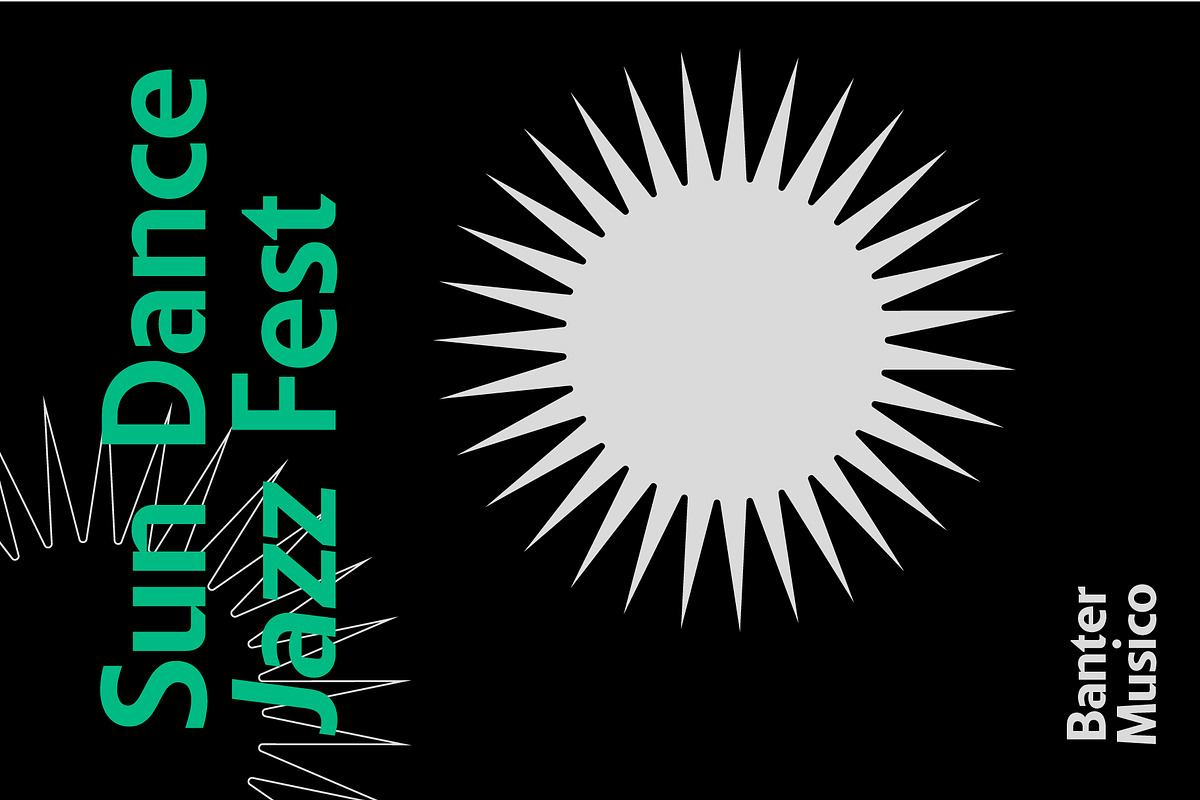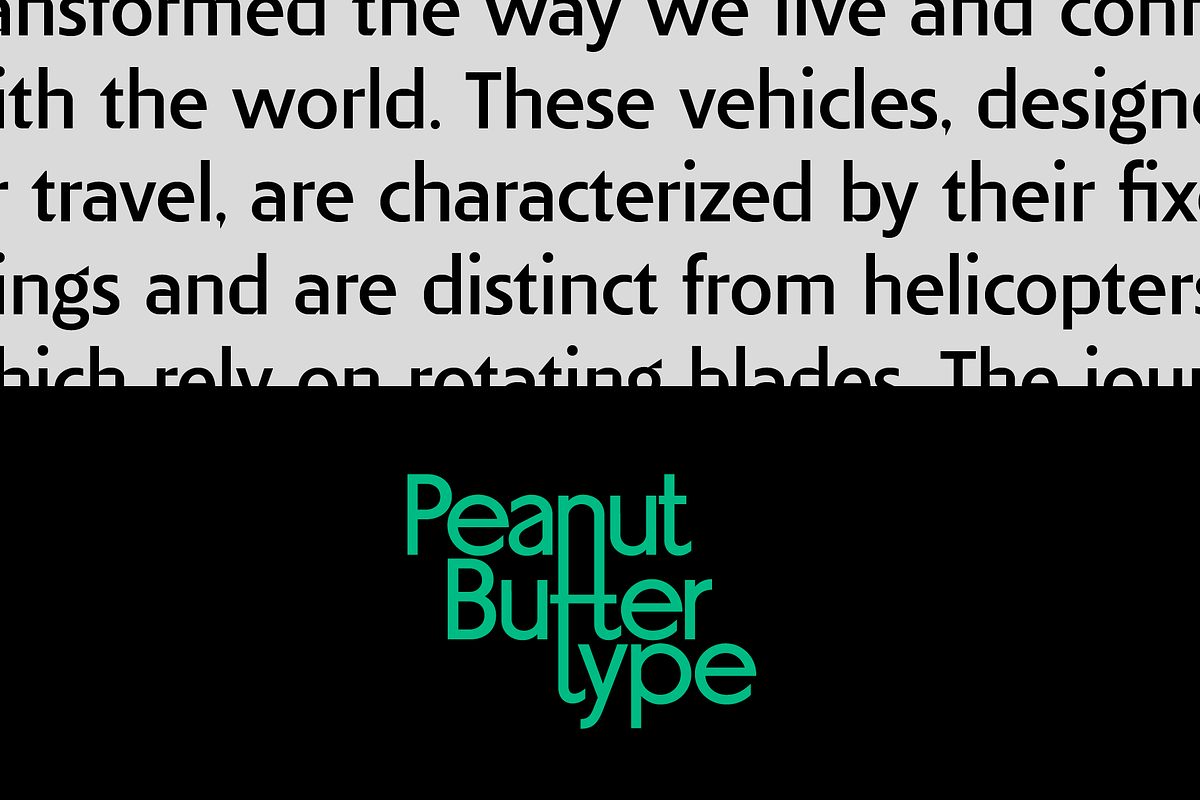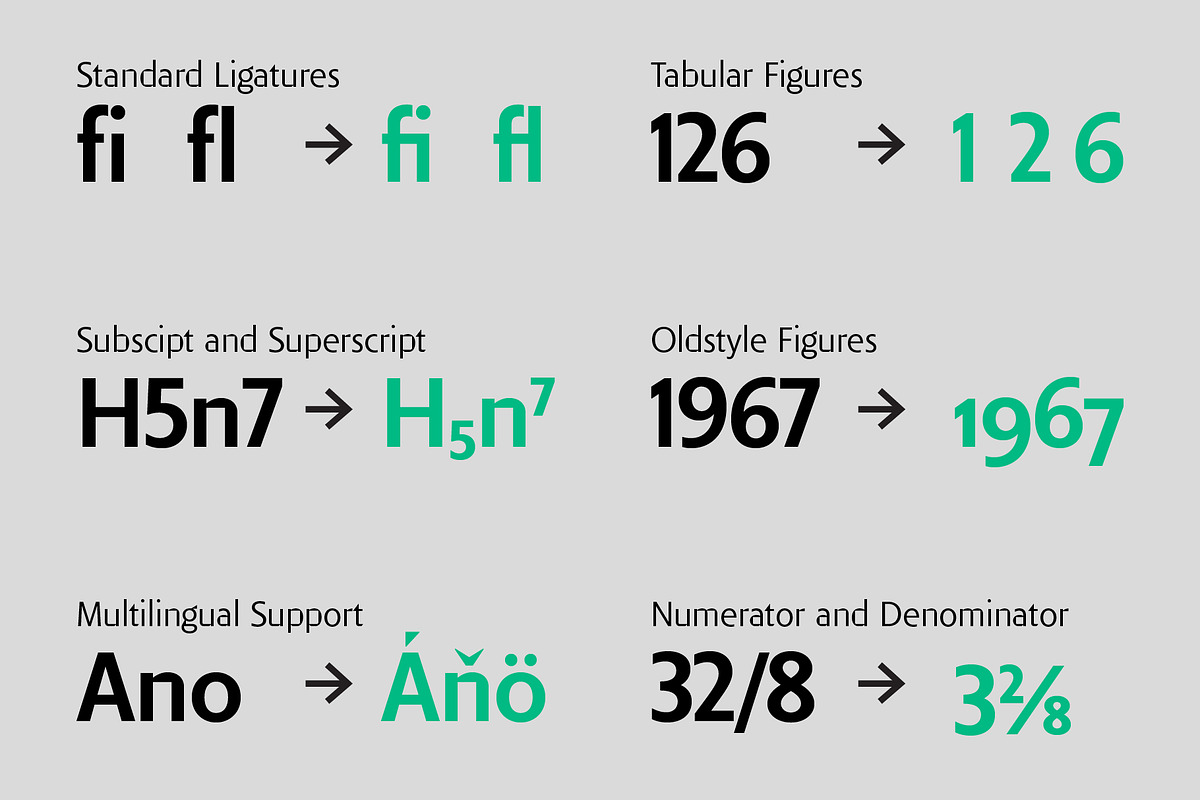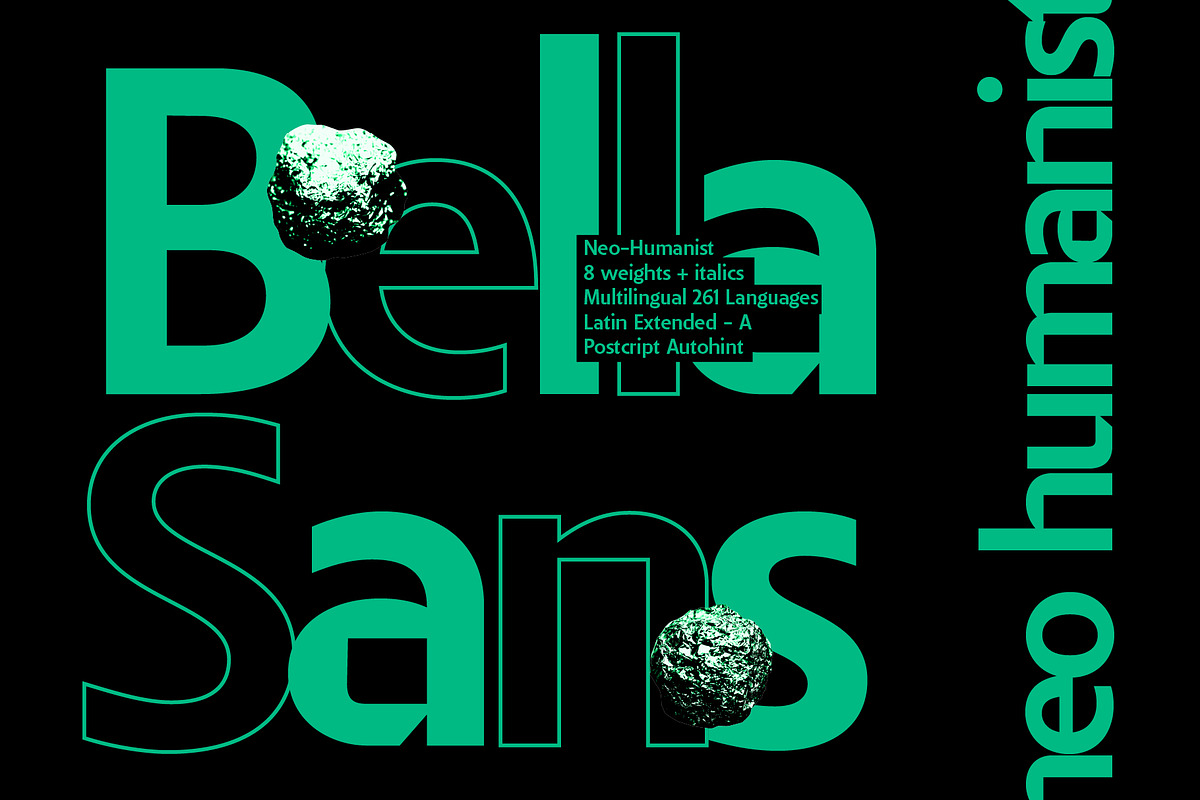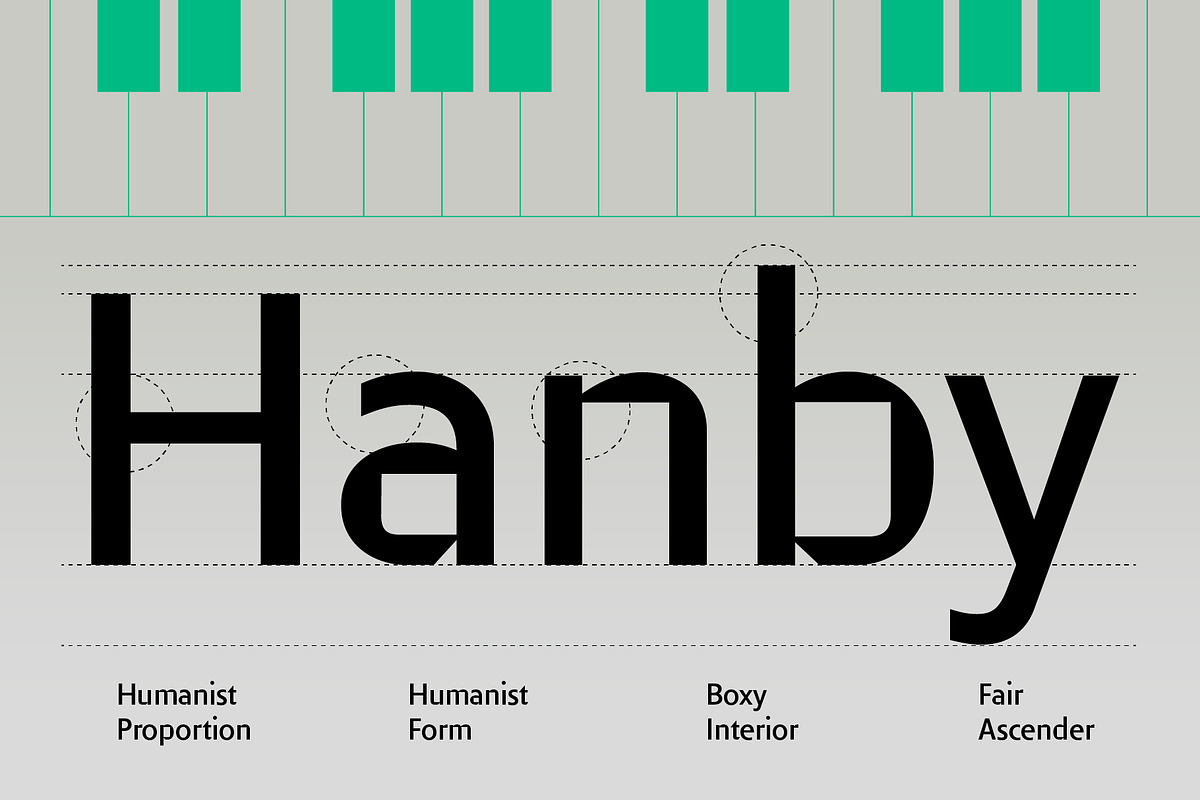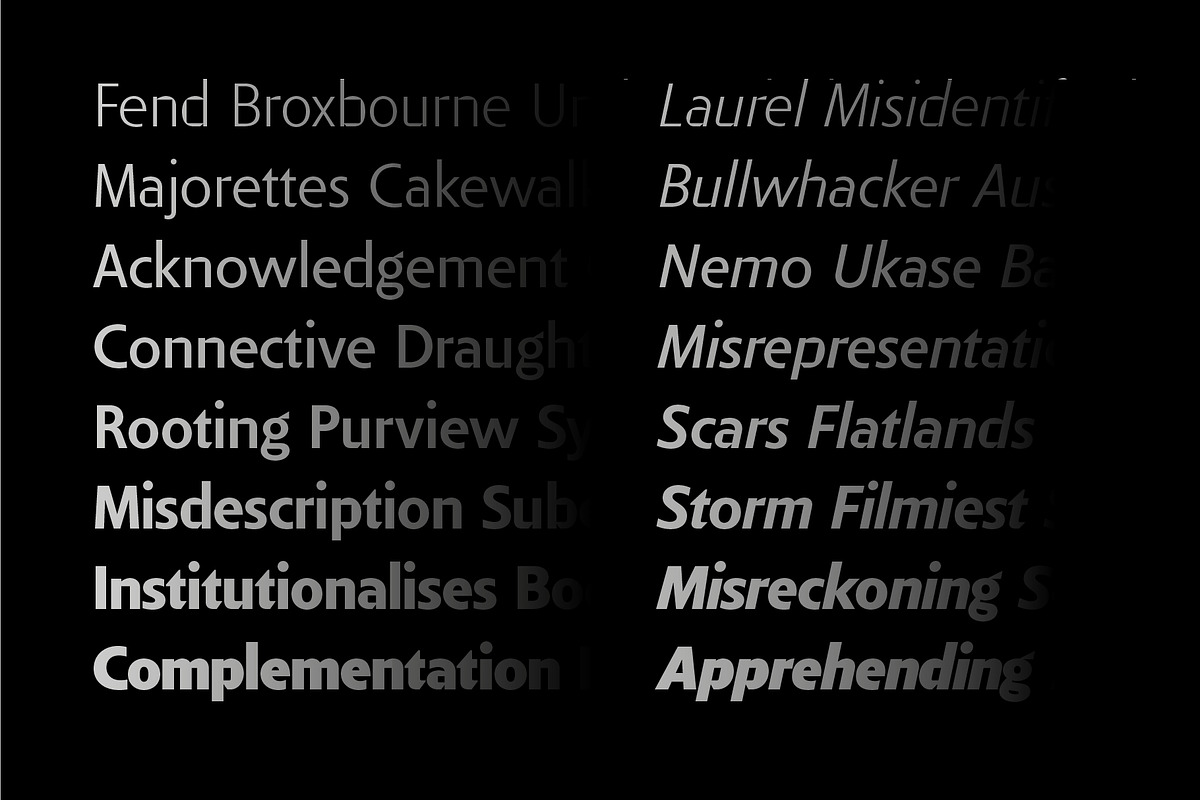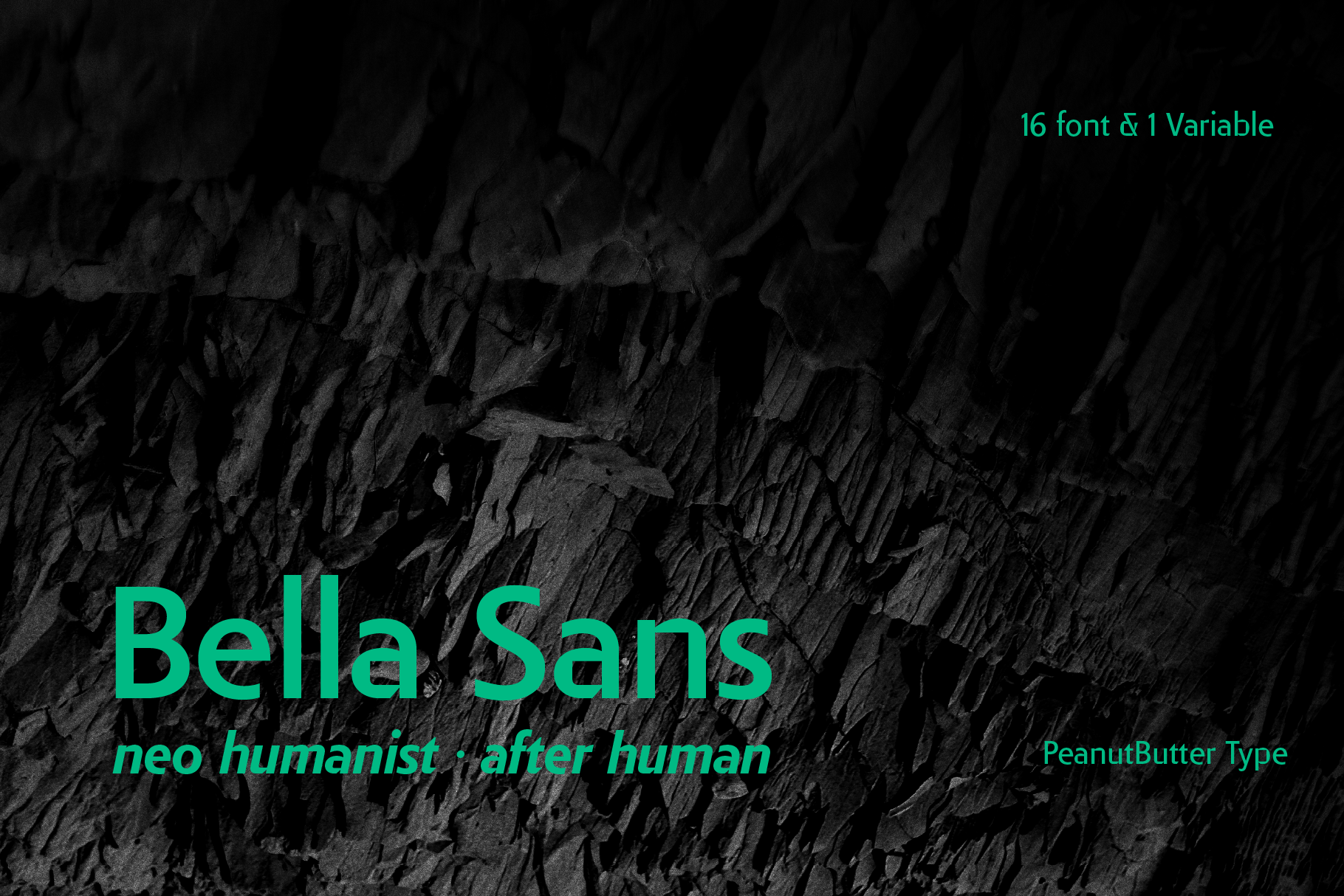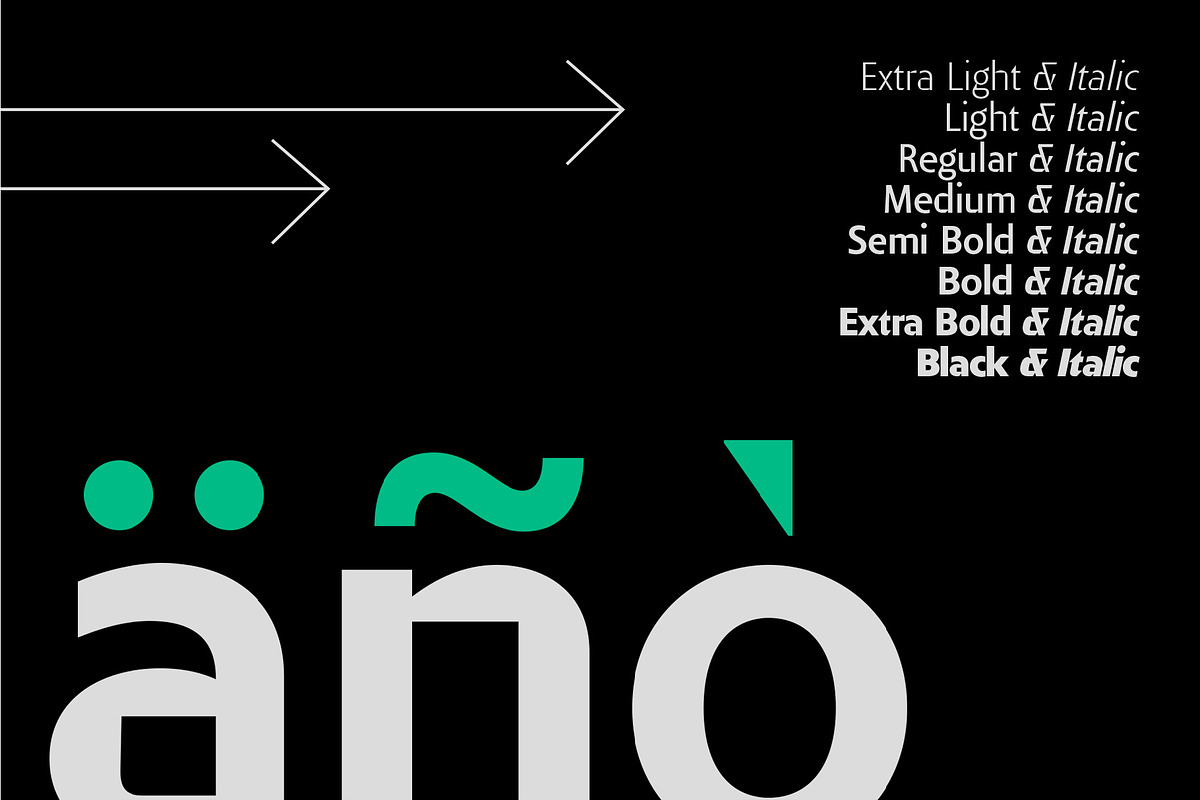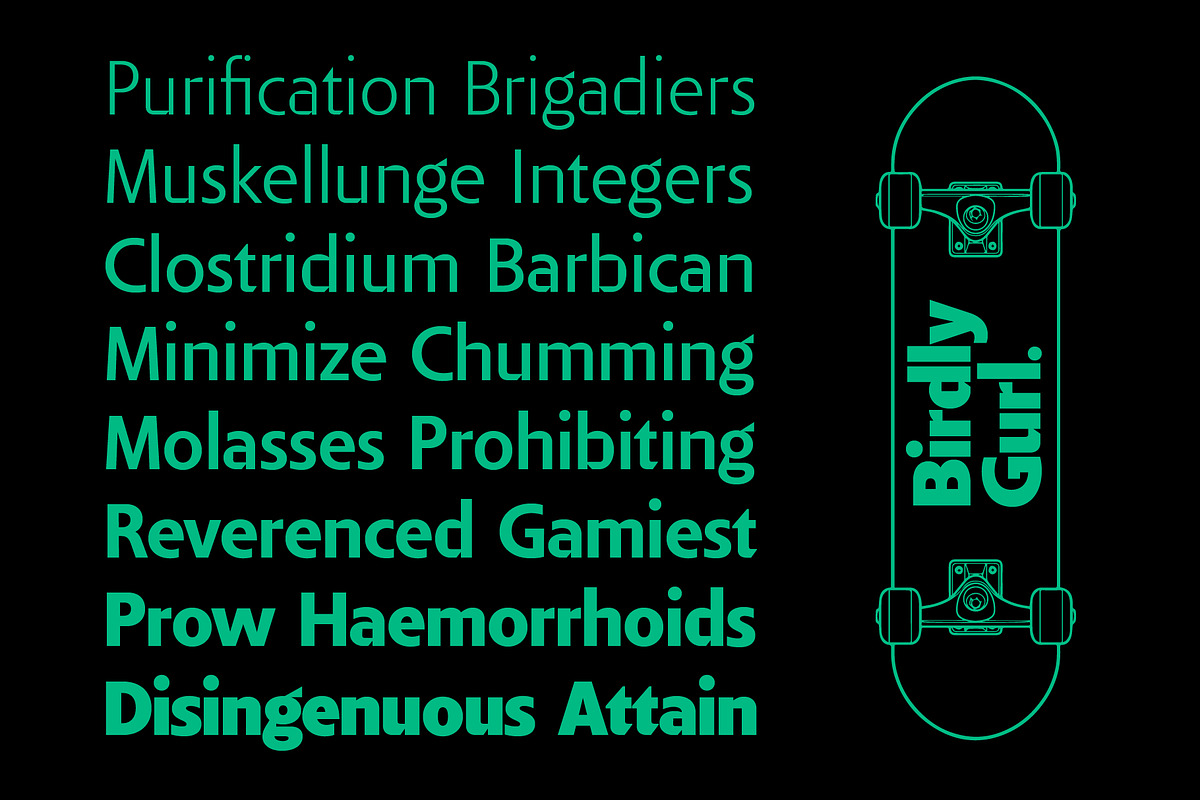
Bella Sans (family font)
Bella Sans is a contemporary humanist sans serif font that seamlessly blends classic elegance with modern design elements. Characterized by its clean lines and sophisticated aesthetic, it stands out with uniquely boxy interiors that add a distinct visual interest. The design of Bella Sans ensures excellent readability while maintaining a stylish and modern look, making it versatile for various applications, from digital interfaces to print media. Its thoughtfully crafted letterforms strike a balance between tradition and innovation, providing a fresh yet timeless typographic solution.